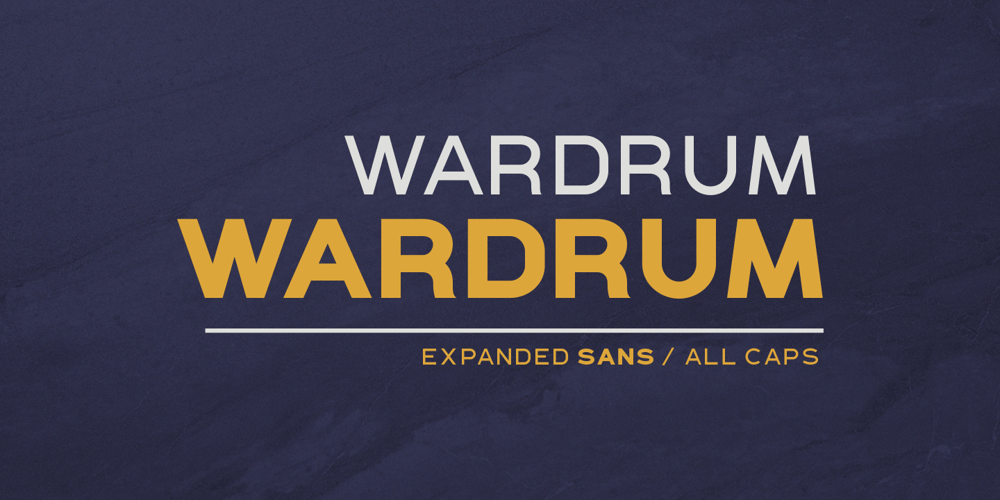
Wardrum Font Family was designed by Hendry Juanda and published by Letterhend. Wardrum contains 4 styles and family package options. Wardrum is an expanded sans with four style! Use this font for your new project. Suitable for branding, poster, or your headline! This font contain uppercase only with number, symbol, punctuations and also support multi language!Email us to letterhend@gmail.com for some questions!